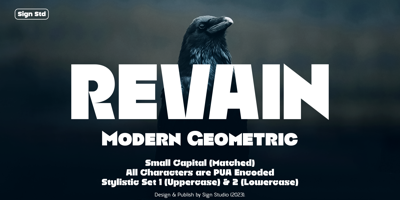
DECORATIVE FONT BUNDLE : 4 in 1 Free Download
Decorative Font Bundle: 4 in 1 Free Download
Decorative Font Bundle: 4 in 1 Free Download is a versatile collection of four unique and stylish decorative fonts designed to elevate your creative projects. From vintage-inspired scripts to bold display fonts, this bundle offers a range of styles suited for logos, branding, packaging, invitations, and social media content.
Each font in this bundle brings its own personality and flair, allowing you to choose the perfect style for your project. Whether you're looking for elegance, playful charm, or modern boldness, the 4 in 1 bundle provides a comprehensive toolkit to make your typography stand out.
The bundle typically includes uppercase and lowercase characters, numerals, punctuation, multilingual support, and stylistic alternates to give you maximum creative flexibility. It’s ideal for both print and digital design work.